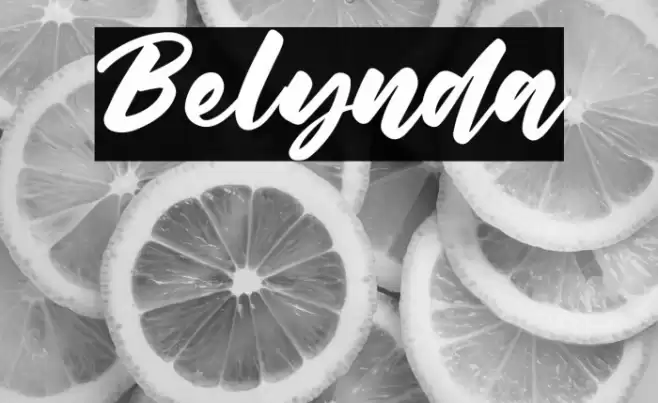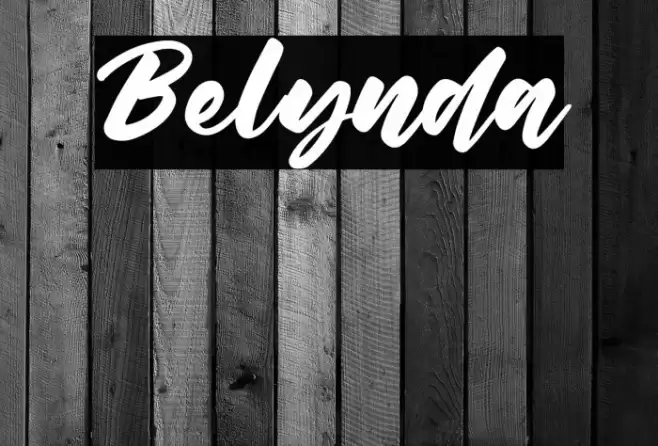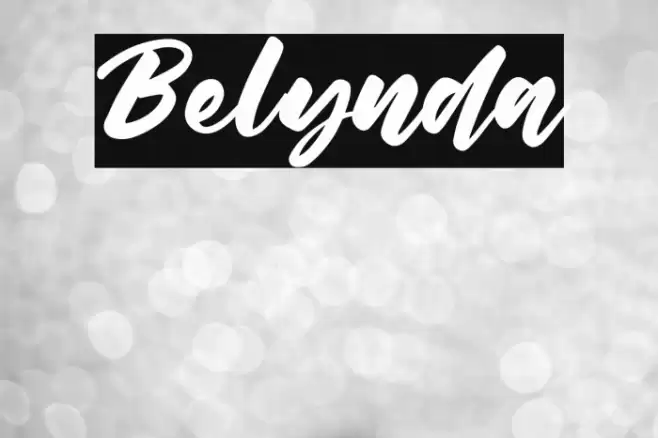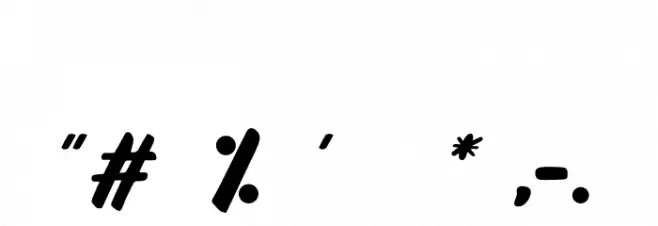
Belynda Font
Belynda Description
This font features a bold and expressive script style with a dynamic flow and smooth curves. The characters are interconnected, giving it a handwritten appearance that is both elegant and casual. The uppercase letters are slightly larger and more pronounced, while the lowercase letters maintain a consistent rhythm. The font includes a full set of numerals and a variety of special characters, enhancing its versatility. Its bold strokes and fluid design make it suitable for creative and artistic projects, where a personal touch is desired.
A bold, expressive script font with a dynamic, handwritten style from Uncategorized fonts.
- Proposed Projects: Ideal for branding, invitations, greeting cards, and social media graphics.
- Use Case: Logos, Headlines, Invitations